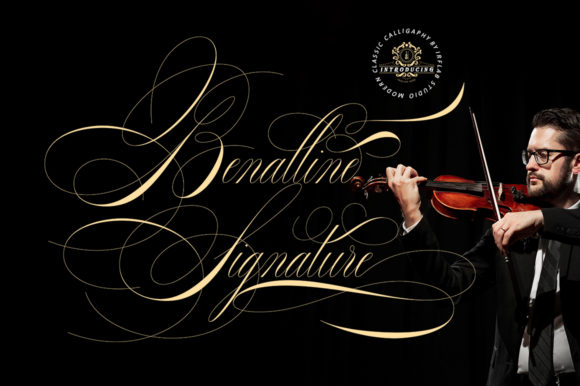
Step into a realm of unparalleled elegance and grace with Banalline Signature Font, a script font that captivates the senses and weaves a tapestry of emotions. Experience the fluidity of its lines, the delicate curves that dance like whispers of the wind, and the enchanting glyphs that evoke a sense of timeless beauty.
Banalline Signature Font is crafted with meticulous attention to detail, each stroke and curve meticulously designed to evoke a sense of sophistication and charm. Its varying baseline adds a touch of dynamism, creating a visual rhythm that draws the eye and captivates the imagination. Whether you're crafting wedding invitations, thank-you cards, or greeting cards, this font will elevate your designs to new heights of elegance.
With Banalline Signature Font, your words will take flight, carrying the weight of your emotions with poise and grace. Its smooth lines caress the page like a gentle breeze, inviting your readers to immerse themselves in the beauty of your message. Whether you're designing logos, business cards, or any other project that demands a handwritten touch, this font will add a touch of refinement and sophistication that sets it apart from the ordinary.
Dare to embrace the power of Banalline Signature Font and unlock a world of creative possibilities. Its versatility knows no bounds, effortlessly adapting to a wide range of design projects. From the delicate charm of wedding invitations to the bold allure of logos, this font will transform your vision into a tangible masterpiece.
Banalline Signature Font is not just a collection of letters; it's an invitation to express your emotions in a way that resonates with your audience. Let your words dance across the page, guided by the elegance and grace of this font, and watch as they come alive with new meaning and depth.